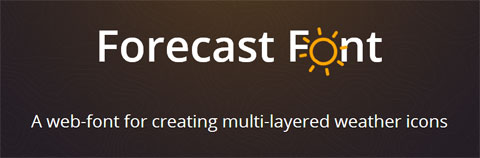
Forecast Font is a lovely web-font for using any weather-related icons on our web pages as fonts. The font is pretty awesome as it consists of items that are multi-layered and this provides a huge margin for customization.
It was created to enable you to have more control over the look and feel of the icons, rather than only having a single colour or style. Flat, single-colour icons might be what your after and thats cool but with Forecast font you have all the flexibility to colour, style or even animate various parts of the icons. Create something a little different from the norm. Even better they are fully scalable for use on all devices, no need to create cumbersome image sprites or use multiple images to create your weather icons.
They can be mono or multi-colored, can be resized completely and very easy-to-use.Website: http://forecastfont.iconvau.lt/